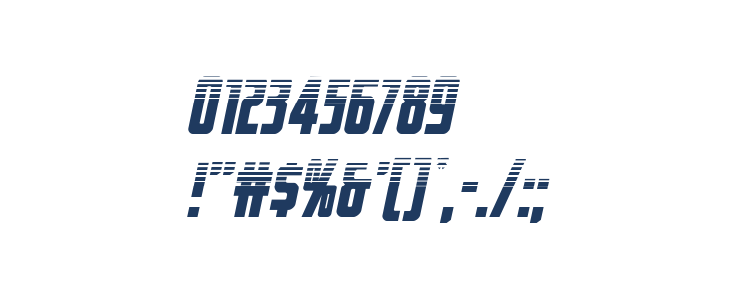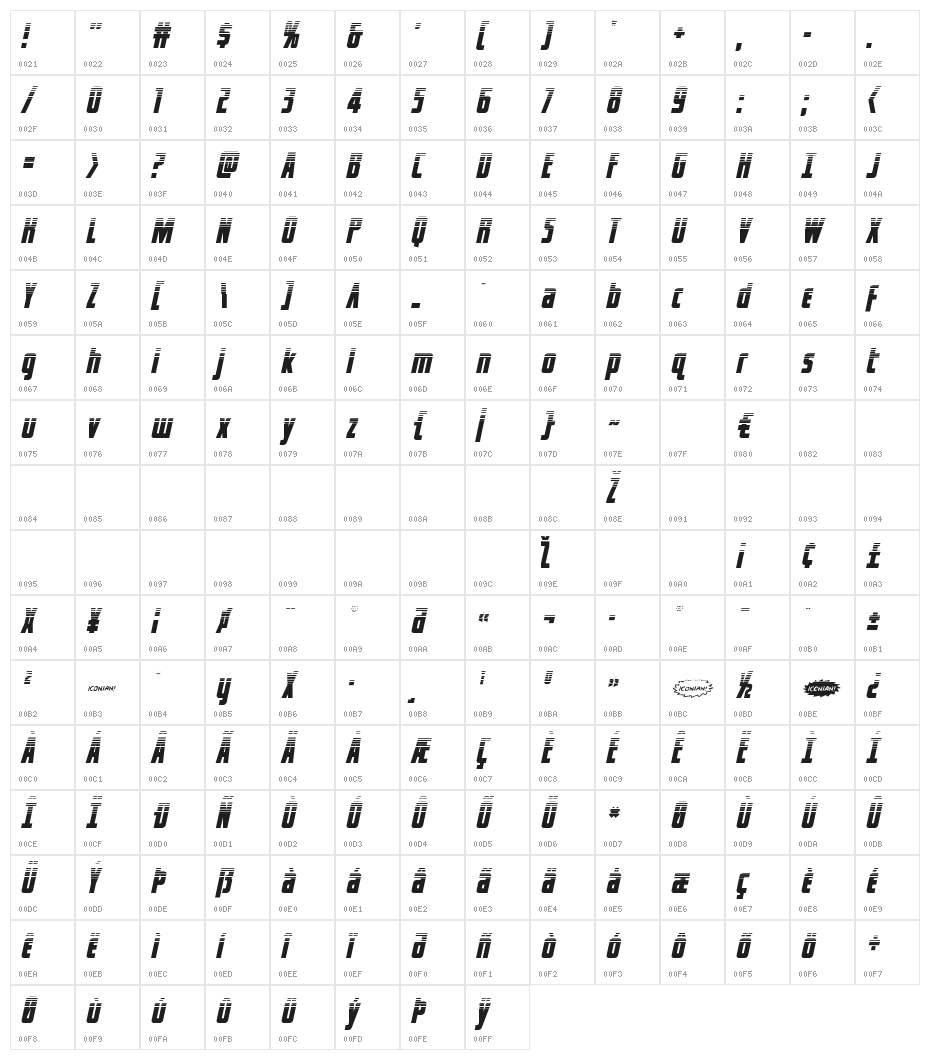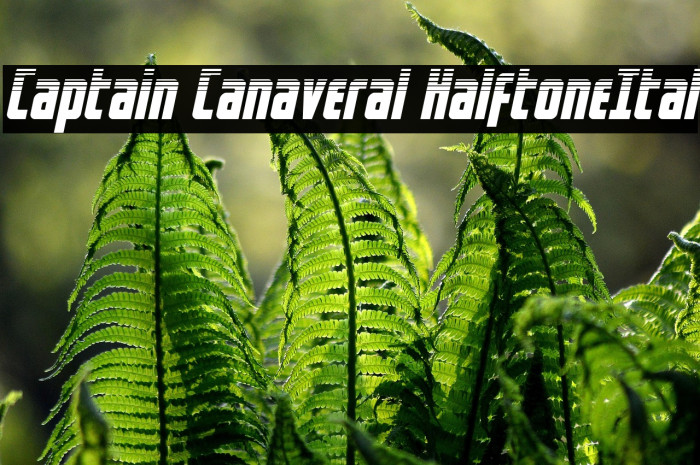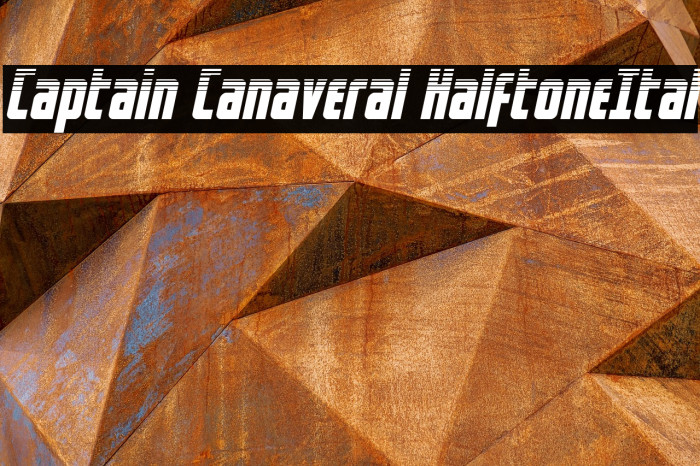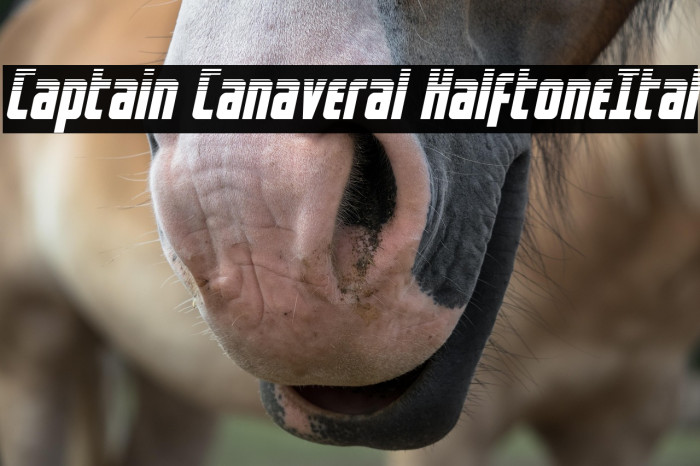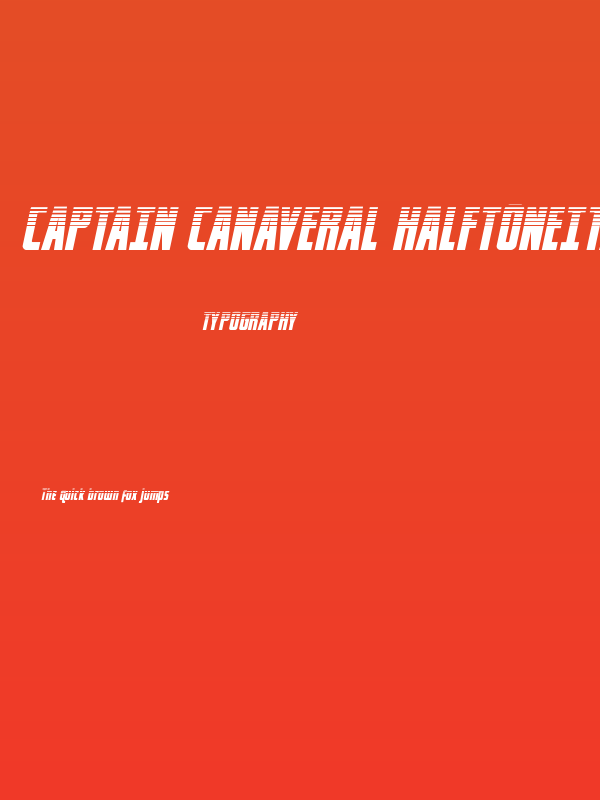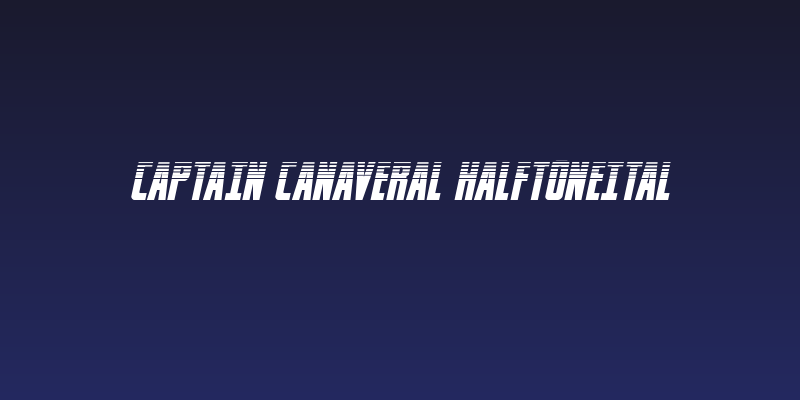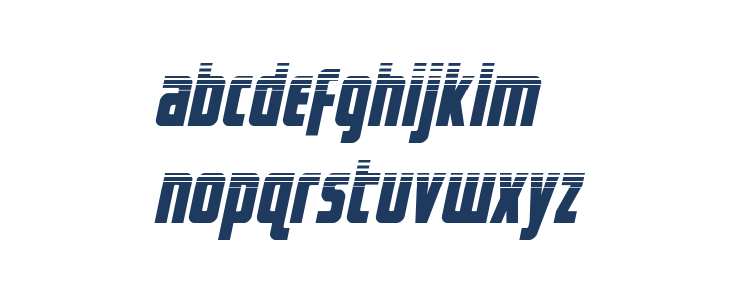
Captain Canaveral HalftoneItal Font
Captain Canaveral HalftoneItal Description
This font features a bold and dynamic design with a distinct halftone effect at the top of each character, creating a sense of movement and energy. The characters are italicized, adding to the sense of forward motion. The uppercase and lowercase letters maintain a consistent style, with sharp angles and a modern aesthetic. The numerals and special characters are equally bold, ensuring readability and impact. The overall style is futuristic and eye-catching, making it suitable for projects that require a strong visual presence.
| Proposed Projects | Ideal for sports branding, futuristic designs, posters, and any project needing a bold statement. |